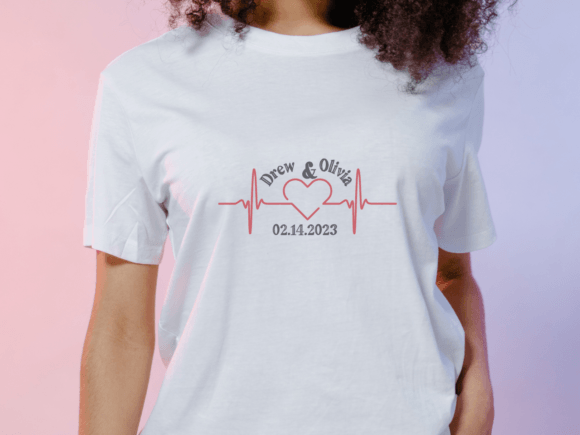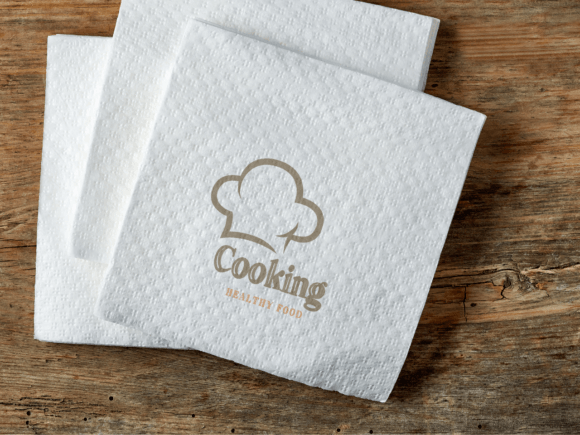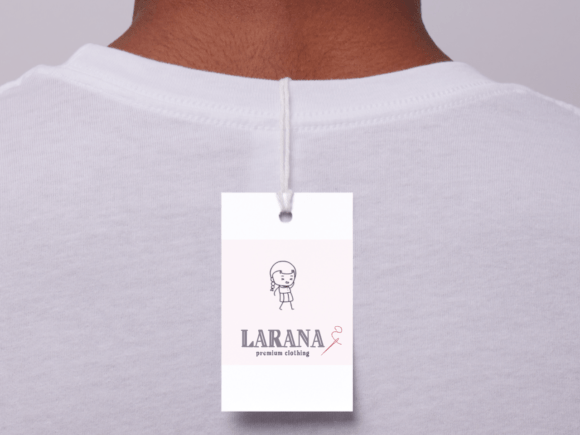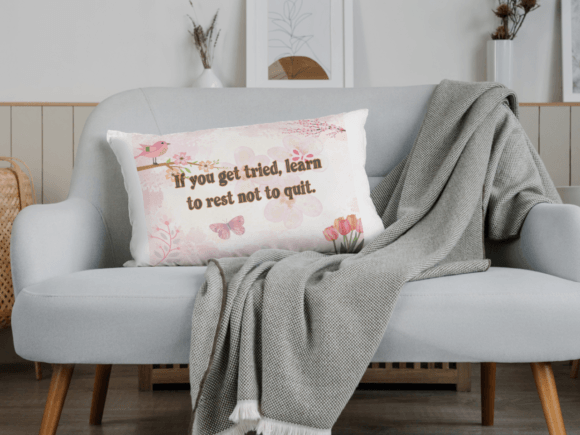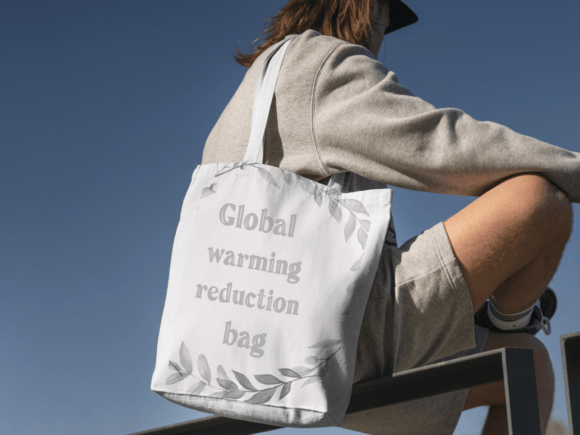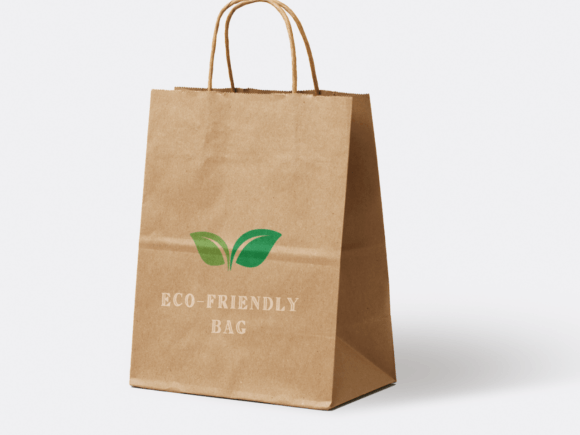
Introduction to Shira Font
You know that moment when a design project clicks, and everything falls into place? The colors, the typography, the overall vibe – it all comes together in perfect harmony. For designers, that ‘click’ is often the result of having the right tools at our fingertips. And when it comes to adding a touch of sophistication to our creative projects, there’s one font that’s sure to make an impact: the Shira Font.
This cool and bold display font is a game-changer for designers looking to elevate their work. With its high-quality design and transparent background, Shira Font is the perfect addition to any creative project. Whether you’re working on a logo, a brochure, or a social media graphic, this versatile font is sure to bring your design to life. And the best part? It’s available for free download, making it an invaluable resource for designers on a budget.
Key Features of Shira Font
- High-quality font with a unique, elegant design perfect for creative projects.
- Comes with a transparent background, making it ideal for use on images and videos.
- Supports a wide range of languages, including English, Spanish, French, and more.
- Features a clean, modern design with a high resolution (up to 300 DPI), suitable for use in print and digital media.
- Designed to be a versatile design resource, suitable for a wide range of creative projects, from logos to typography.
Honest Review: Shira Font
As a designer, I’m always on the lookout for high-quality design resources that can elevate my creative projects. Recently, I stumbled upon the Shira Font, and I must say, it’s been a game-changer. This free download has become a staple in my design toolkit, and I’m excited to share my honest review with you.
- High-quality typography: The Shira Font boasts sleek, modern lines that make it perfect for any creative project.
- Transparent background: This feature allows for seamless integration with any design element, giving me more flexibility in my projects.
- Limited language support: While it’s great for English-based projects, I wish it had more language options.
- No bold or italic variants: At times, I’ve found myself wishing for more font variations to add emphasis to my designs.
Overall, I’m thoroughly impressed with the Shira Font. Its high-quality design, transparent background, and free download make it an excellent addition to any designer’s toolkit. While it may have some limitations, I believe it’s a valuable resource that can help elevate your creative projects. Give it a try and see for yourself!
Shira Font is a high-quality design resource that can elevate your creative project. It’s available for free download, making it an excellent addition to any designer’s toolkit. This font features a unique and modern style, making it perfect for various design applications.
Tips for Getting the Most Out of Shira Font
To get the most out of Shira Font, use it with a transparent background to create a clean and modern design. Experiment with different font sizes and styles to add visual interest to your project. You can also use Shira Font in combination with other design elements, such as graphics and images, to create a cohesive and engaging design.
Common Use Cases for Shira Font
Shira Font is commonly used in various design applications, including business cards, brochures, and website headers. Its modern and unique style makes it perfect for creative projects that require a touch of sophistication and elegance.
Q: Does the Shira Font have a transparent background?
Yes, the Shira Font has a transparent background, making it easy to use in design applications that require a clear background. This feature is especially useful when creating designs with complex backgrounds or when using the font in combination with other design elements.